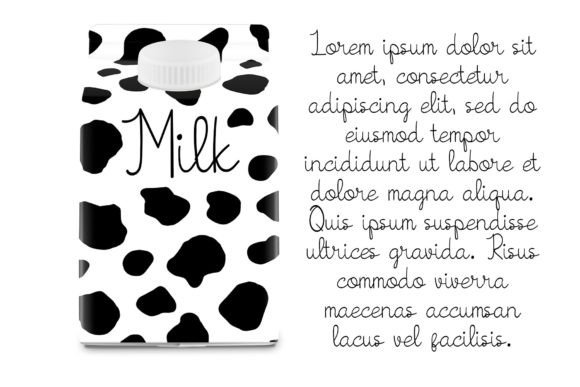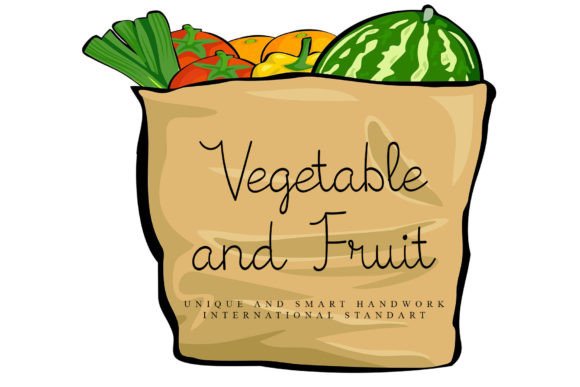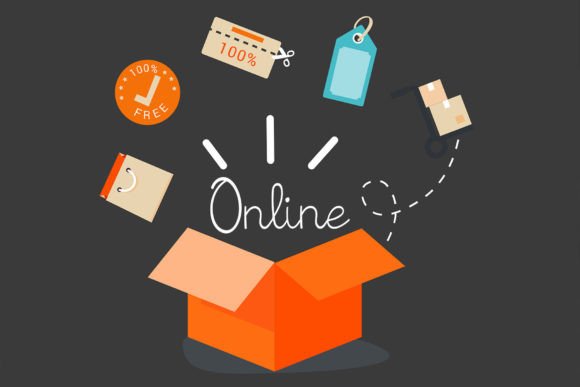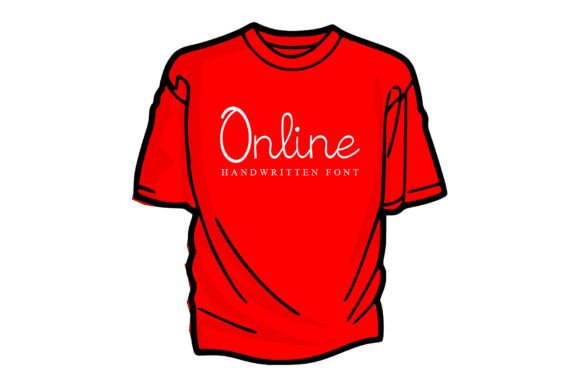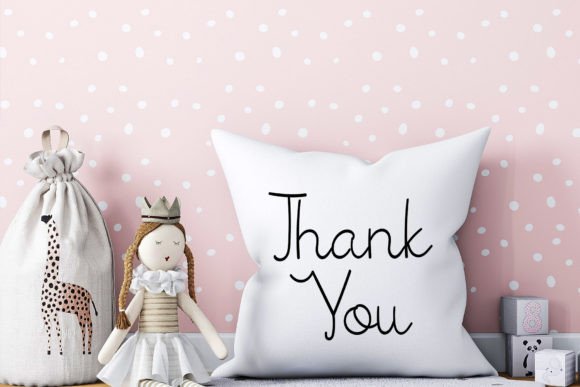
Asther Font: Elevate Your Designs with Elegance and Sophistication
In the world of typography, fonts play a crucial role in conveying the tone and personality of a design. For designers and crafters seeking to add a touch of elegance and sophistication to their creations, Asther Font is an exceptional choice. This unique and elegant font is perfect for a wide range of applications, including wedding invitations, greeting cards, billboards, logos, business cards, and more.
The Distinctive Characteristics of Asther Font
Asther Font stands out from other fonts due to its distinctive characteristics. One of its most notable features is its varied baseline, which gives it a natural, hand-made touch. This unique feature allows Asther Font to bring a sense of realism and authenticity to any design, making it perfect for projects that require a personal and human touch.
Another significant advantage of Asther Font is its PUA (Private Use Area) encoding. This means that designers can easily access all glyphs and swashes, allowing for greater flexibility and creativity in their designs. With Asther Font, you can effortlessly create stunning and intricate designs that showcase your unique style and vision.
Asther Font’s versatility makes it an excellent choice for various design applications. Here are some of the ways you can use Asther Font to elevate your designs:
• Wedding Invitations: Add a touch of romance and sophistication to your wedding invitations with Asther Font. Its elegant and refined appearance makes it perfect for formal wedding designs.
• Greeting Cards: Create beautiful and heartfelt greeting cards for special occasions, such as birthdays, anniversaries, and holidays, with Asther Font.
• Billboards: Make a lasting impression with Asther Font on billboards. Its unique and eye-catching design ensures that your message will stand out from the crowd.
• Logos: Use Asther Font to create stunning logos that reflect your brand’s personality and values. Its elegant appearance makes it perfect for businesses seeking to establish a professional image.
• Business Cards: Elevate your business cards with Asther Font, adding a touch of sophistication and elegance to your professional networking materials.
Why Choose Asther Font?
With so many fonts available, why choose Asther Font? Here are some compelling reasons to consider:
• Unique and Elegant: Asther Font’s distinctive design makes it stand out from other fonts. Its elegant appearance adds a touch of sophistication to any design.
• Handmade Touch: Asther Font’s varied baseline gives it a natural, hand-made touch, making it perfect for designs that require a personal and human touch.
• PUA Encoded: With PUA encoding, you can easily access all glyphs and swashes, allowing for greater flexibility and creativity in your designs.
• Versatile: Asther Font is suitable for a wide range of design applications, making it an excellent addition to any designer’s toolkit.
In conclusion, Asther Font is an exceptional choice for designers and crafters seeking to add a touch of elegance and sophistication to their creations. Its unique and elegant design, combined with its handmade touch and PUA encoding, make it perfect for a wide range of design applications. Whether you’re creating wedding invitations, greeting cards, billboards, logos, or business cards, Asther Font is sure to elevate your designs and make them stand out from the crowd.